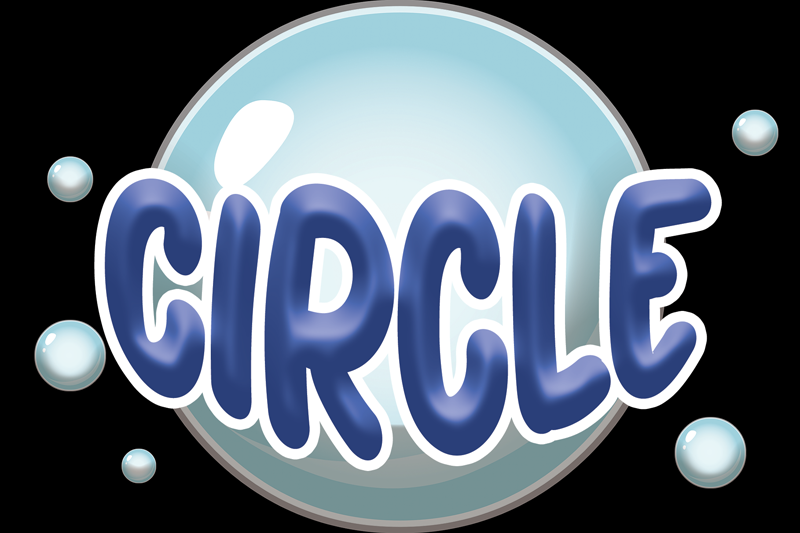
Font name: | Circle |
Circle is a bold and simple display font. Simple and easy to use, this font will be very beautiful if you mix it with your various craft designs. Attention : Circle handwriting Font is prohibited to use this font for commercial purposes or for profit without the permission of the author/admin, without being known to use this font without permission, will be subject to sanctions 5x the specified price. This font is used only for demos (Demo license) If you want to use this font for commercial use please contact email: erikluluk0@gmail.com or click the link below: https://www.creativefabrica.com/product/circle-57/ref/745146/ If you want to see more other fonts, please click:https://www.creativefabrica.com/designer/erik-studio/ref/745146/ Any donations are very appreciated. Paypal account for donation: https://paypal.me/erikstudio1 thanks. |